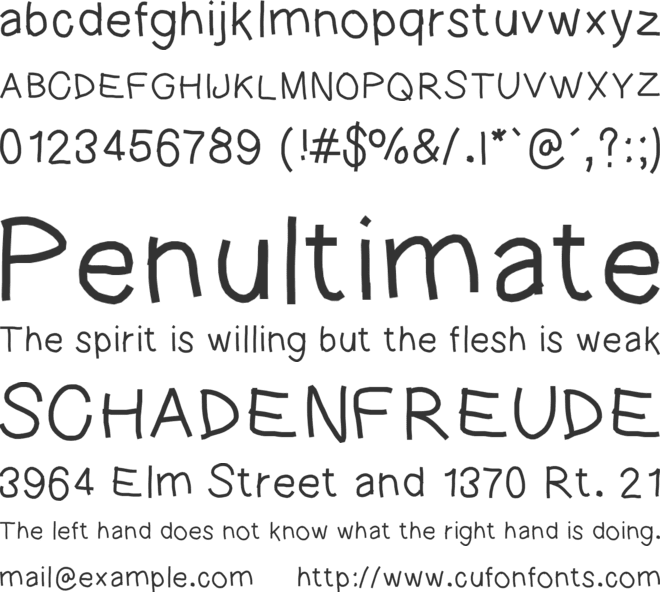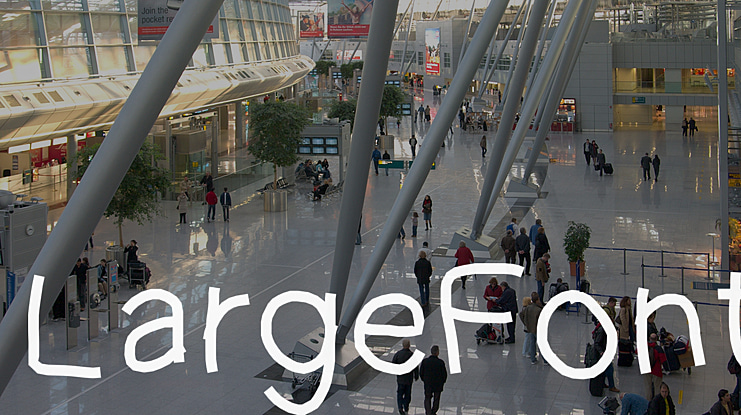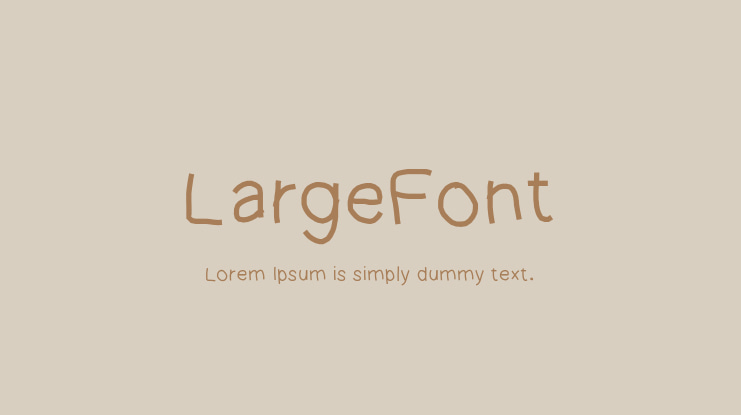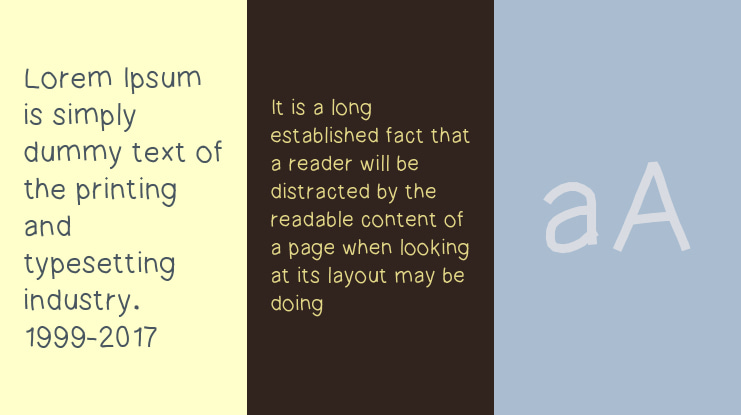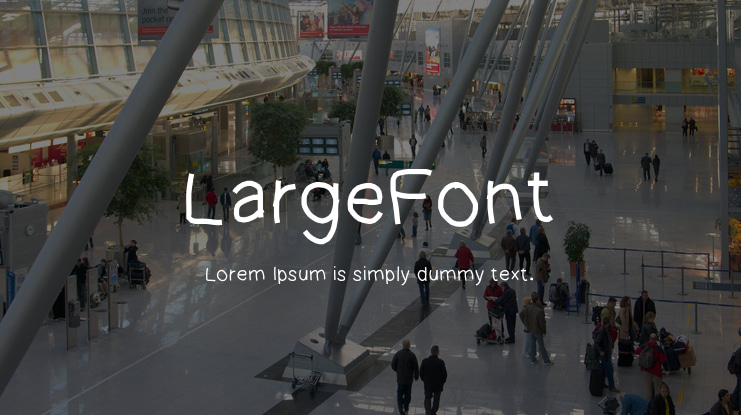
LargeFont Font
Here is a fun font with a manual and irregular appearance.
It contains most of the accents and special characters used in french and spanish.
Voici une police avec un aspect manuel et irrégulier.
Elle contient la plupart des accents et caractères spéciaux utilisés en français et en espagnol.